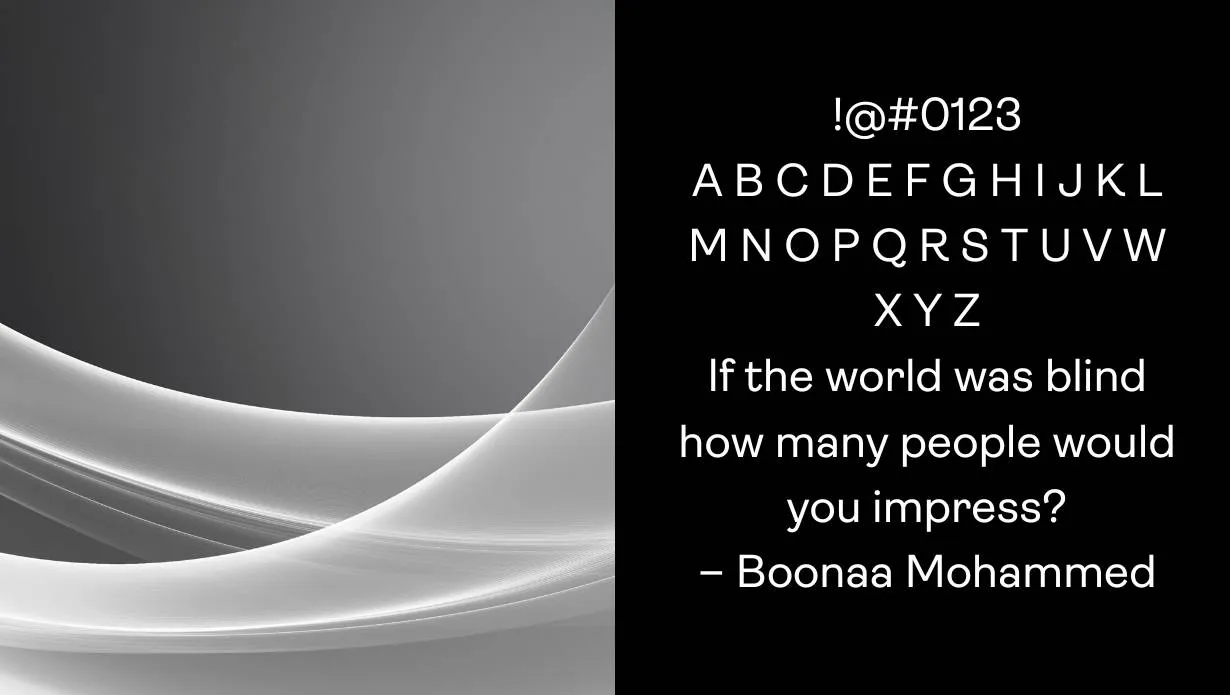
Ambit Font is a sans-serif typeface created by Swiss designer Mark Bloom. The typeface was released by the Haas Type Foundry. This Font was created at a time when the Swiss style of design was becoming increasingly popular. The typeface is characterized by its clean, geometric lines.
It is widely considered to be one of the most influential typefaces of the 20th century and has been used by many major brands. You can also apply a great simple and useful neo sans font that is available on an over-web portal and is ready to download.
| Name | Ambit Font |
| Designer | Mark Bloom |
| Style | Sans-serif |
Ambit Font Family